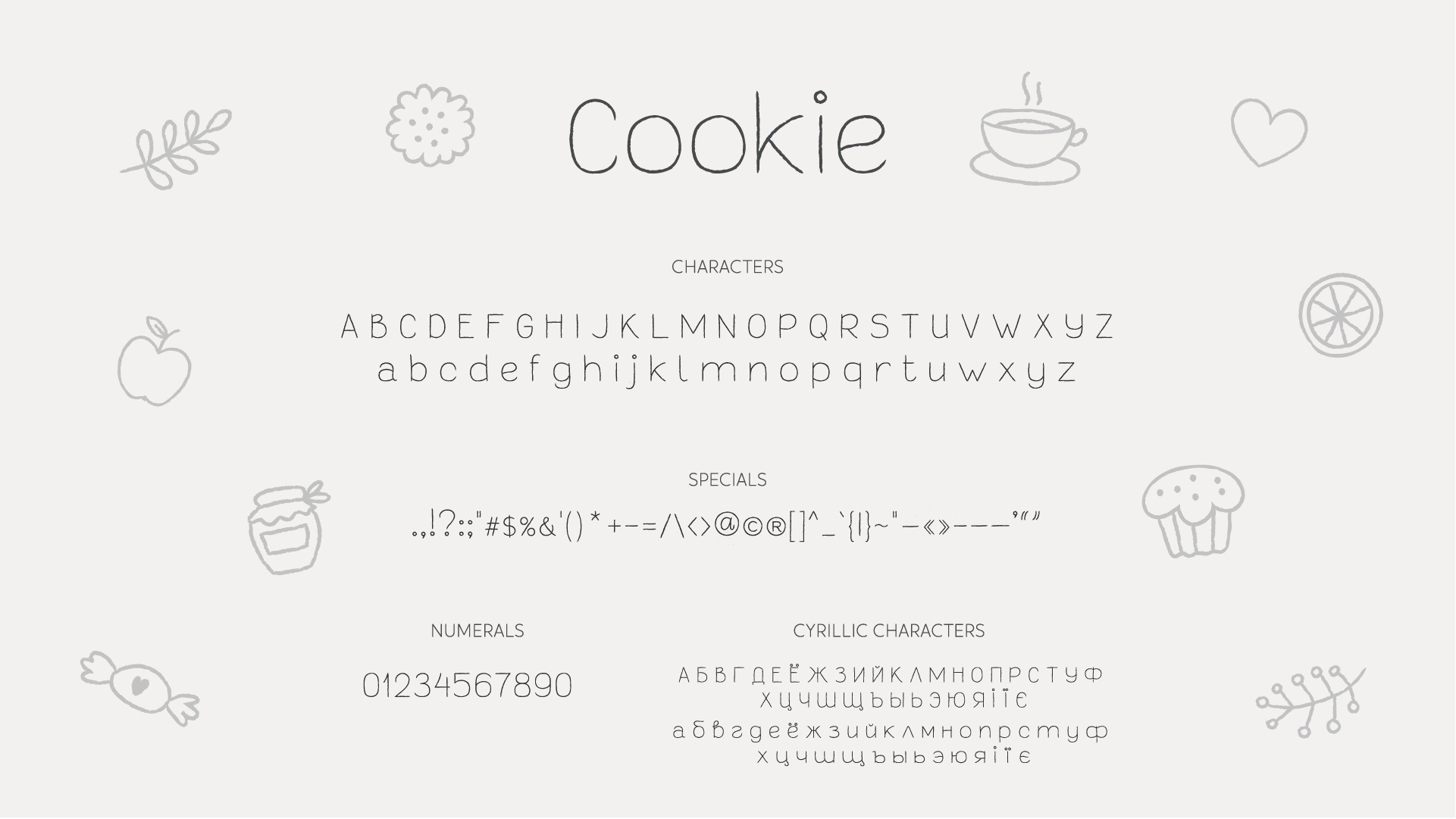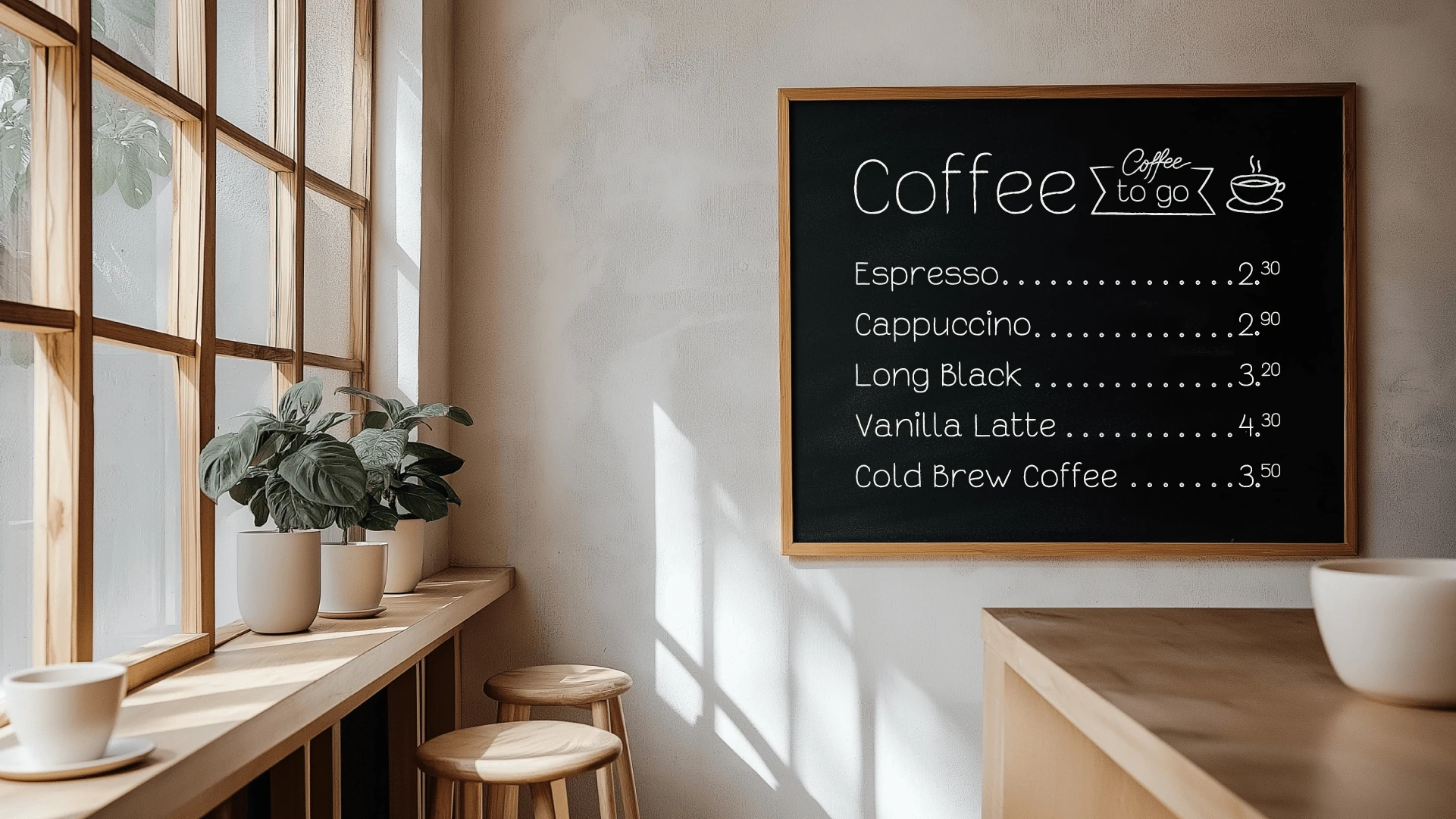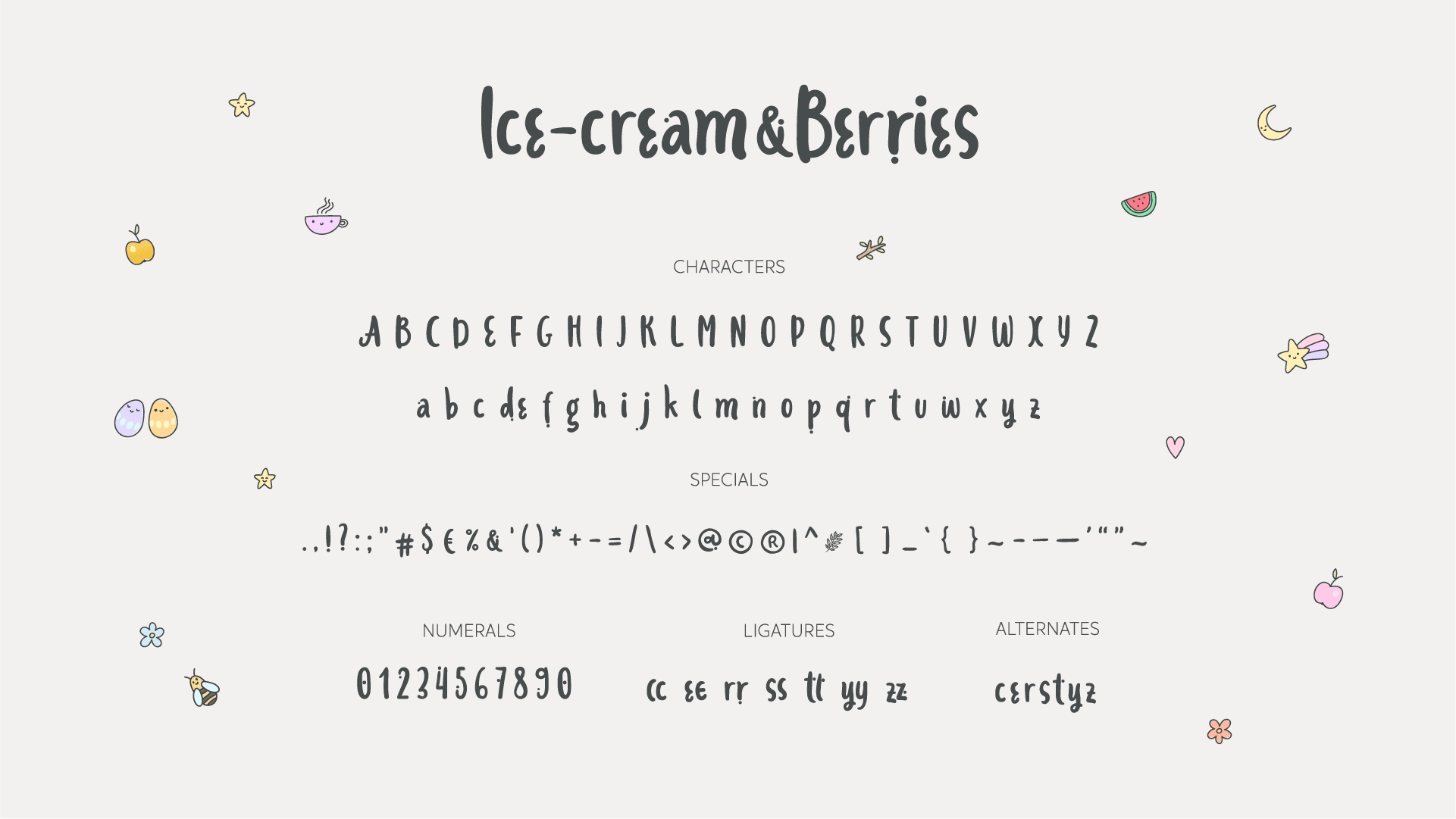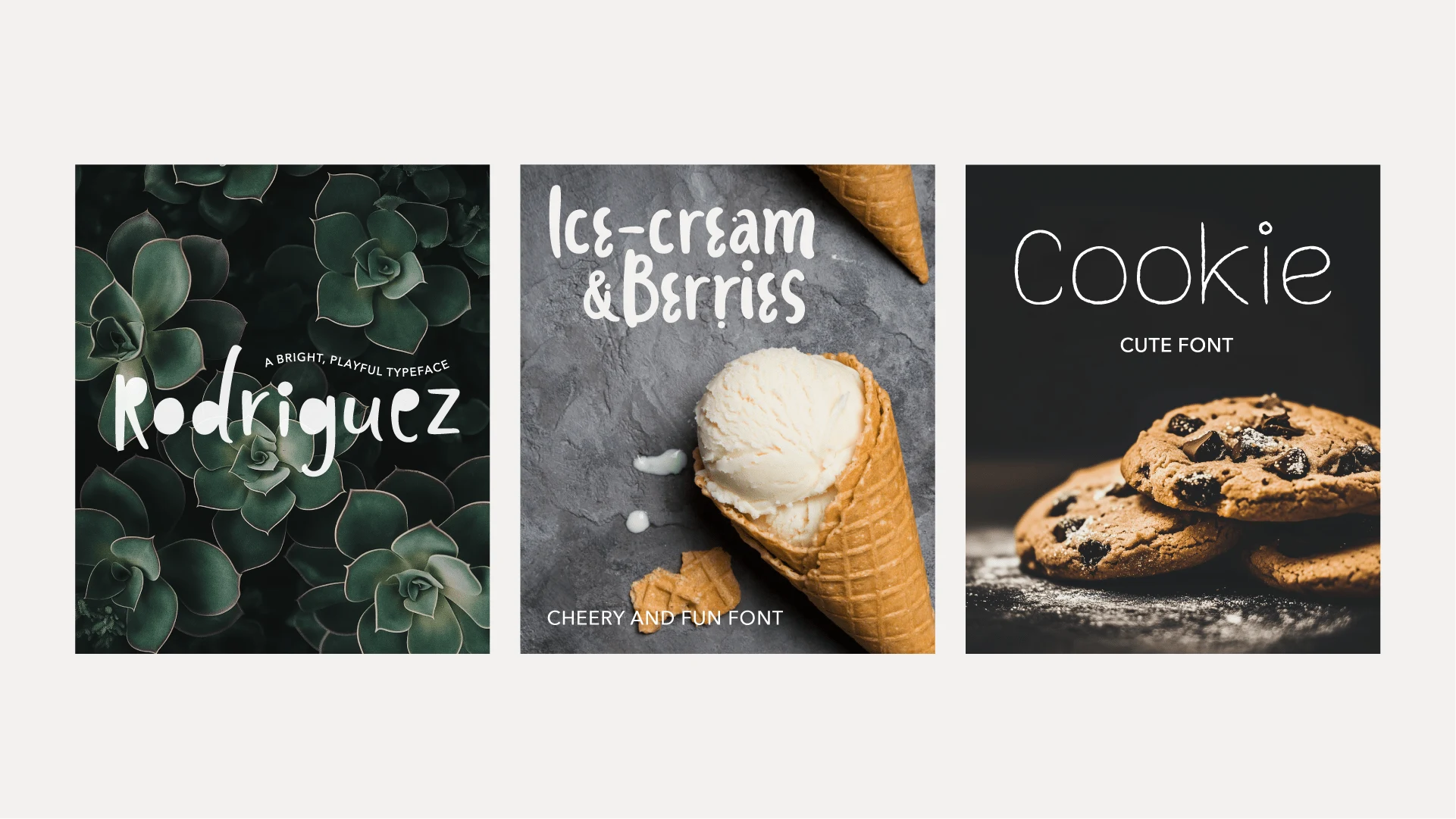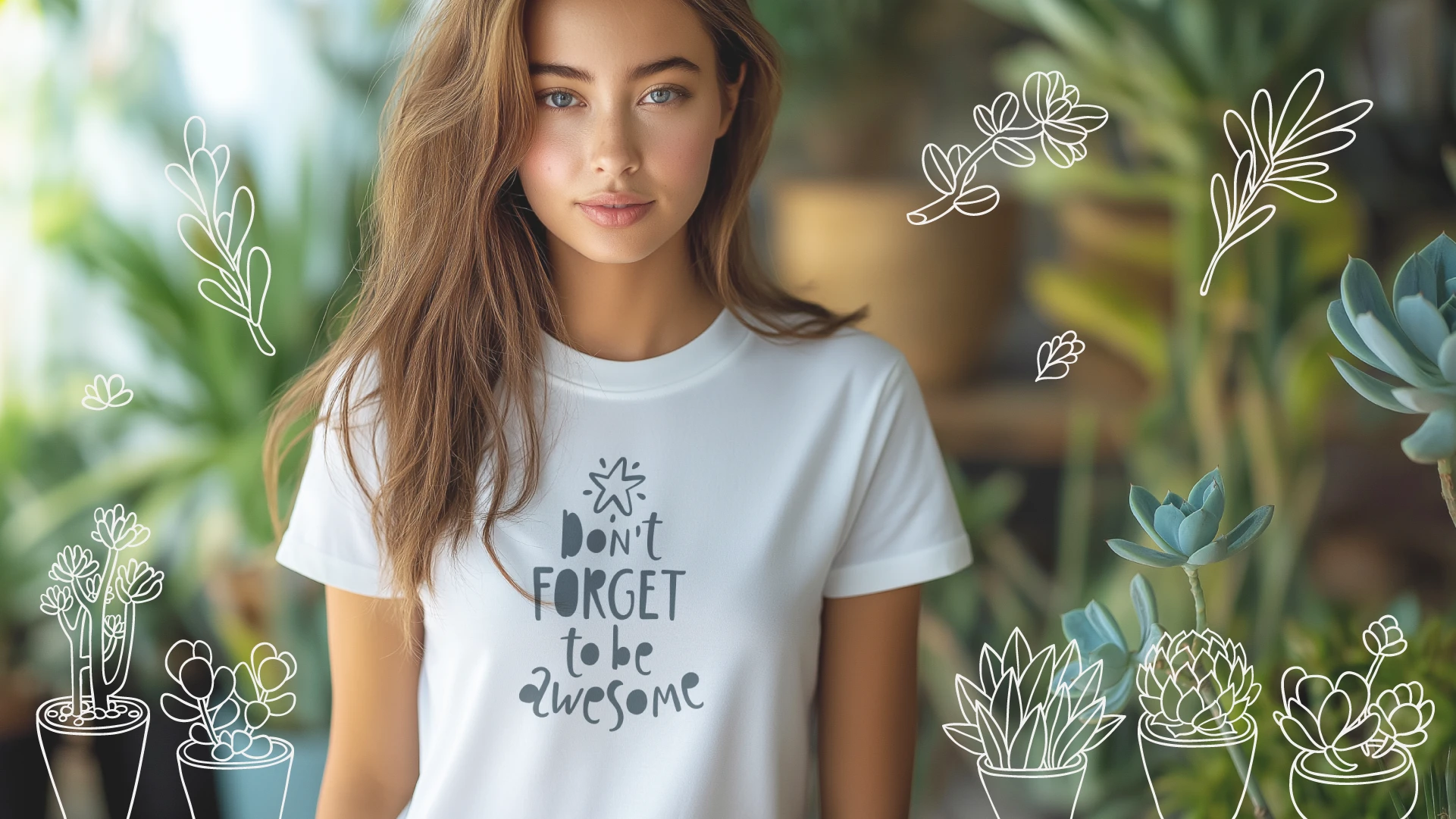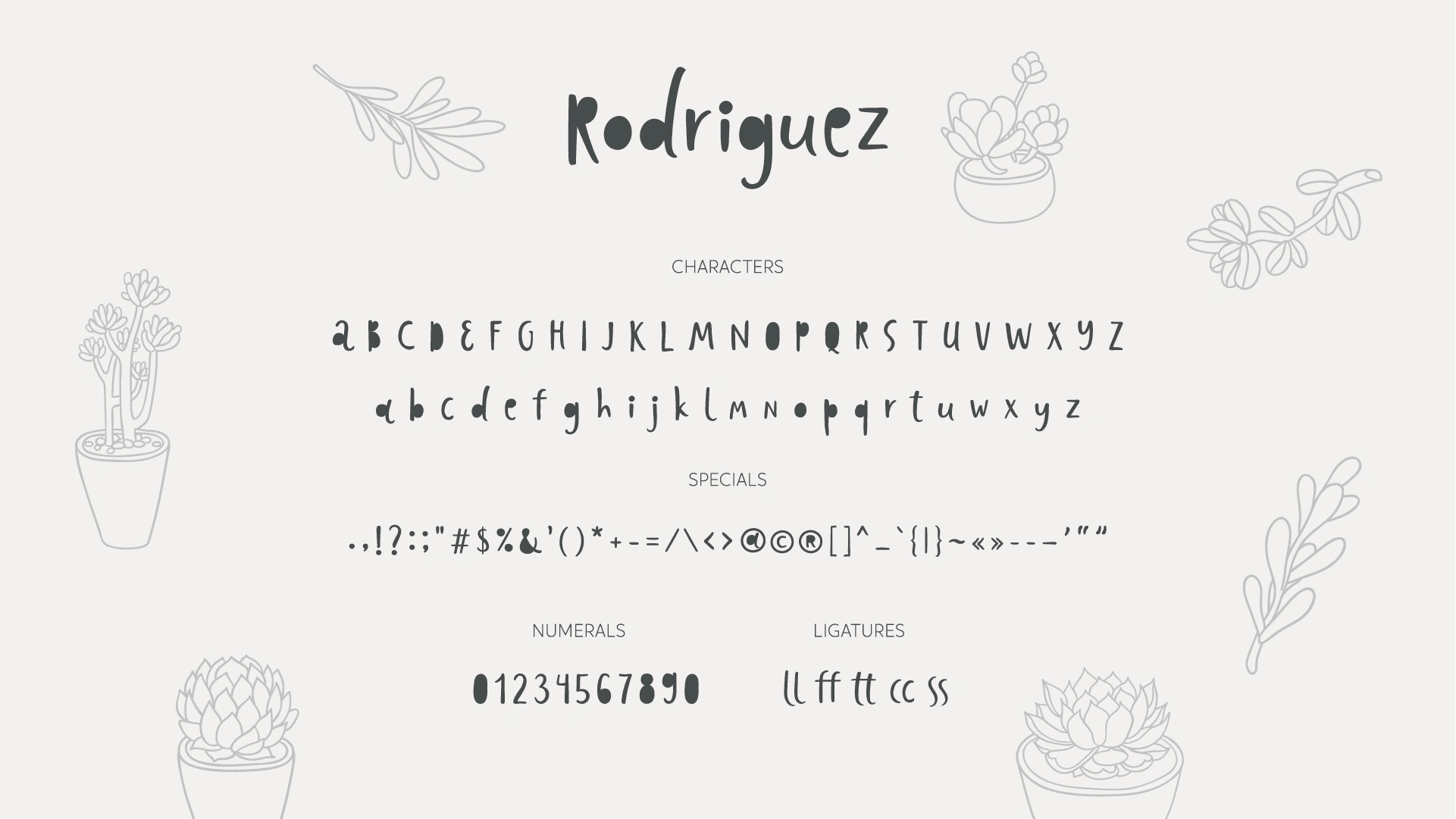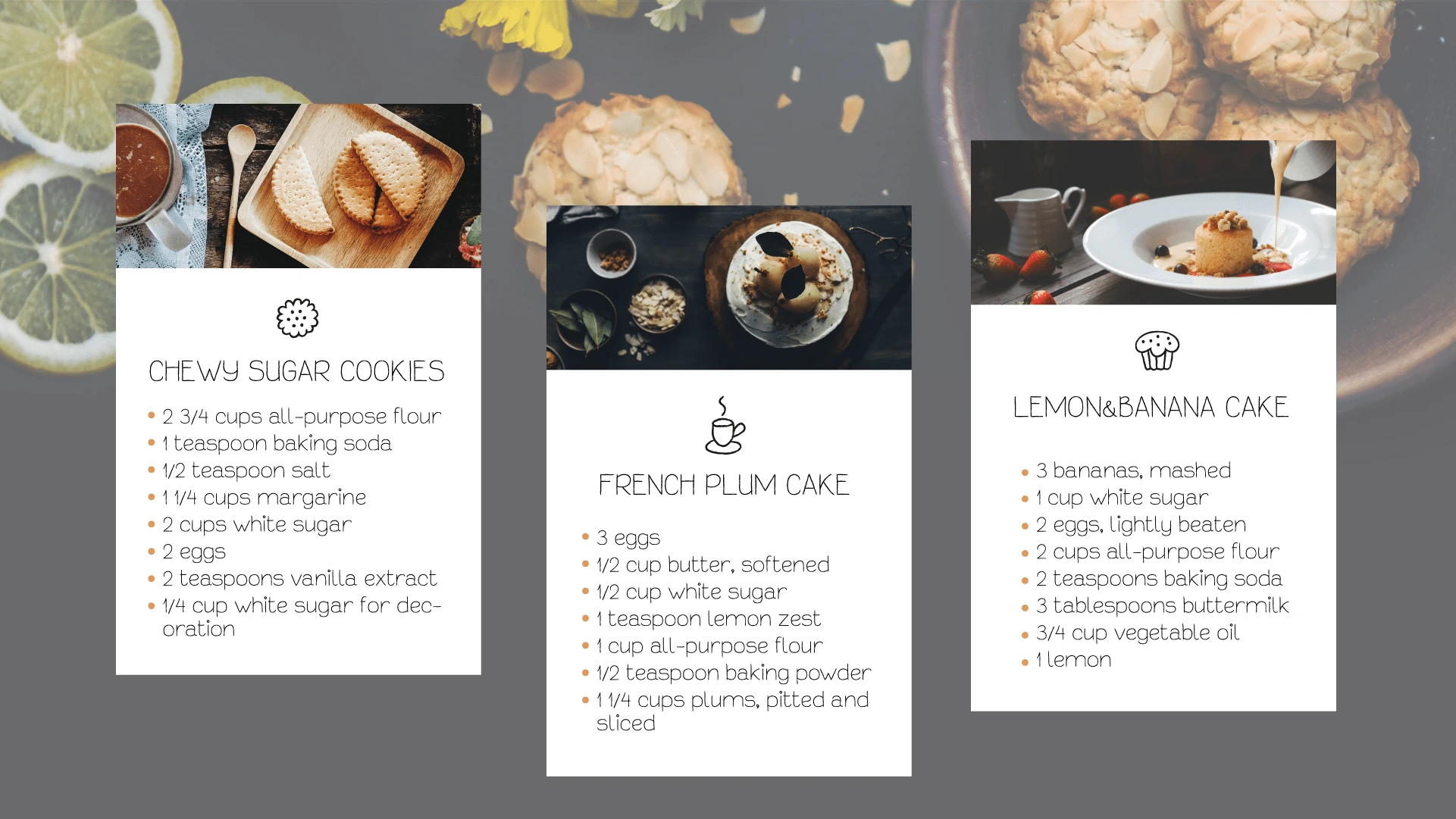
3 FREE FONTS + bonus
Introducing 3 new, free for download fonts (Rodriguez, Cookie and Ice Cream&Berries) – bright, fun and playful typefaces that are packed with personality! These display fonts are perfect for adding fun to apparel, prints, article headlines, web graphics, lettering compositions, and more! Try them on t-shirts, print materials, or anywhere you want a splash of color and creativity.